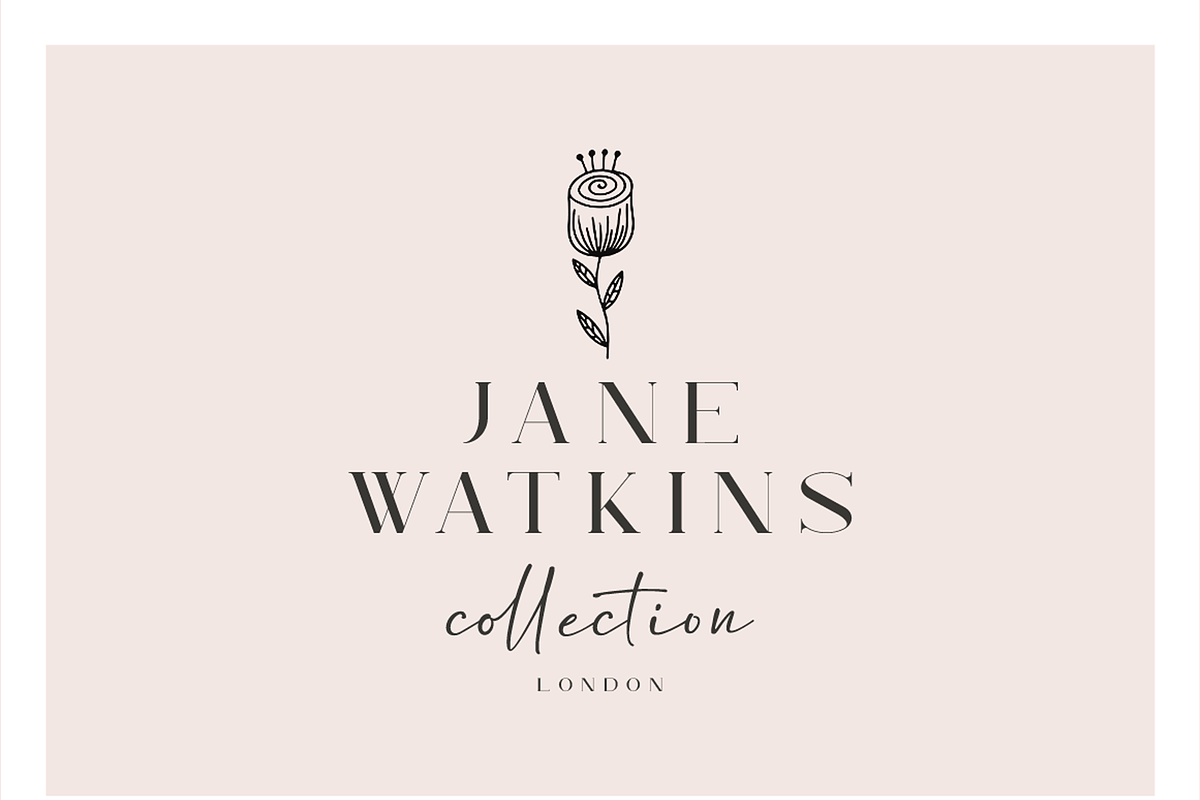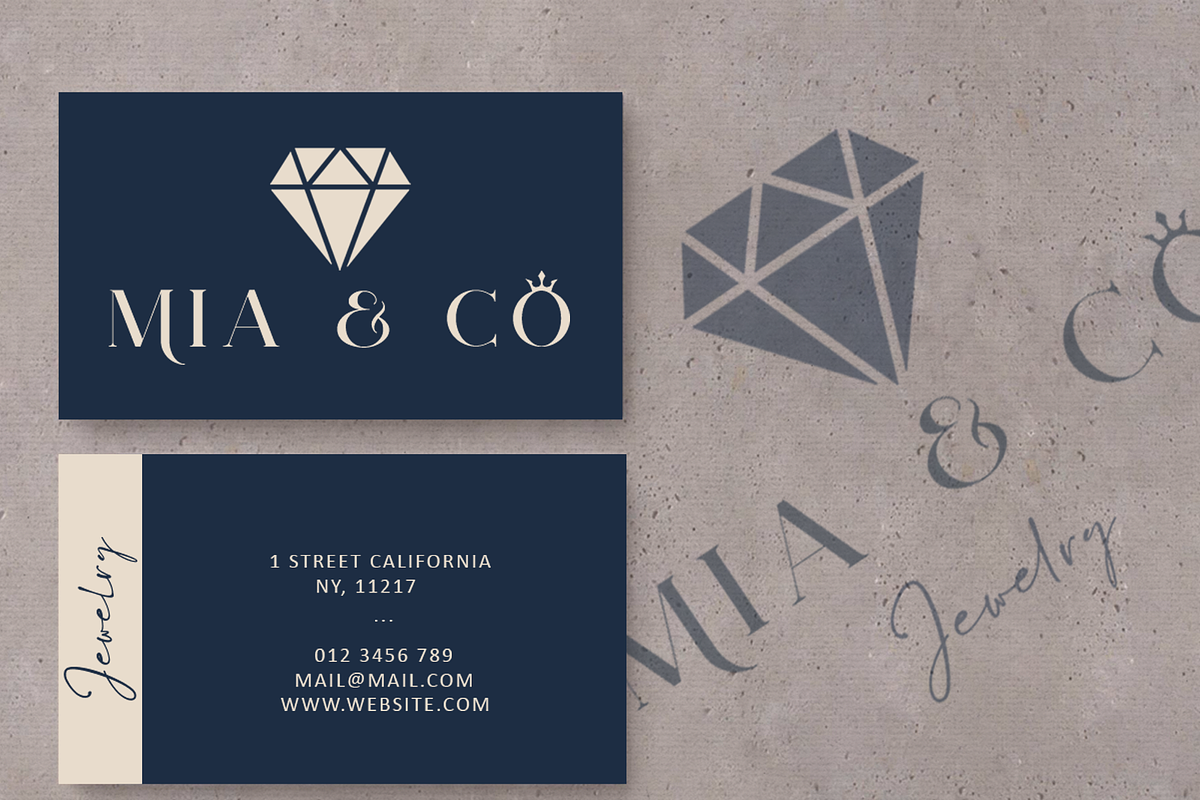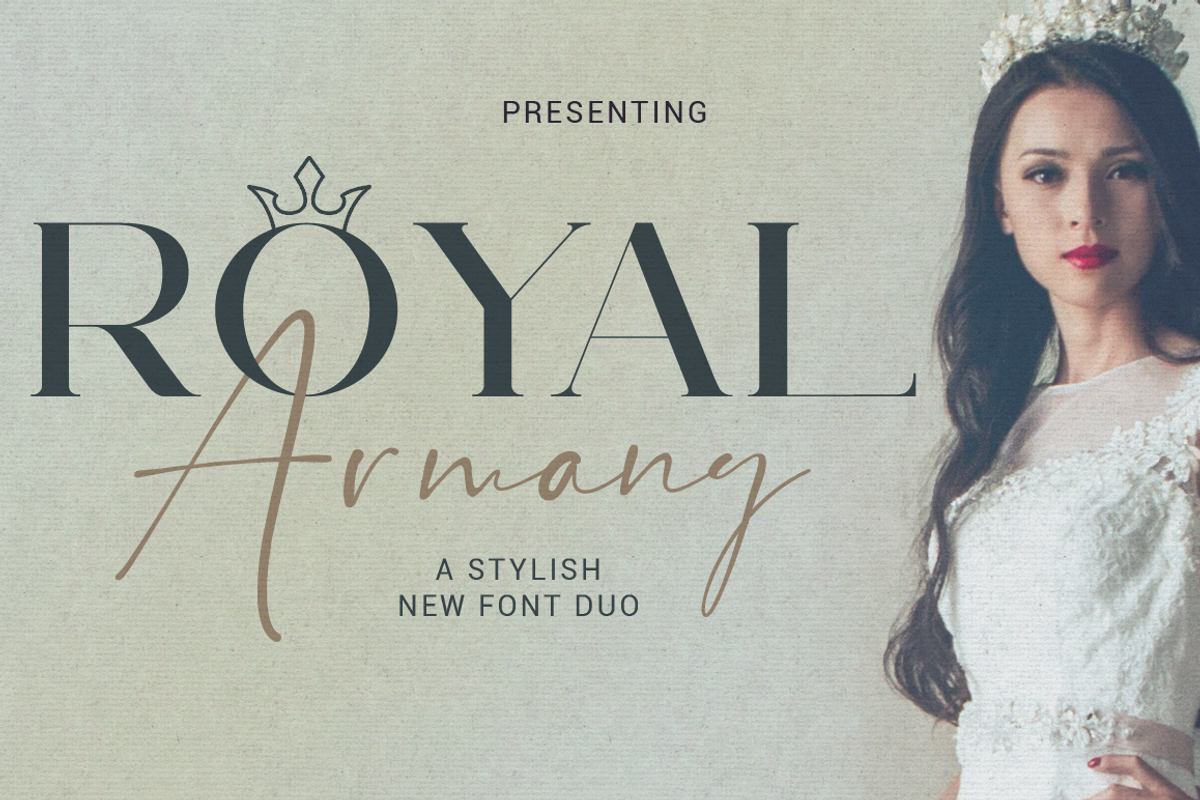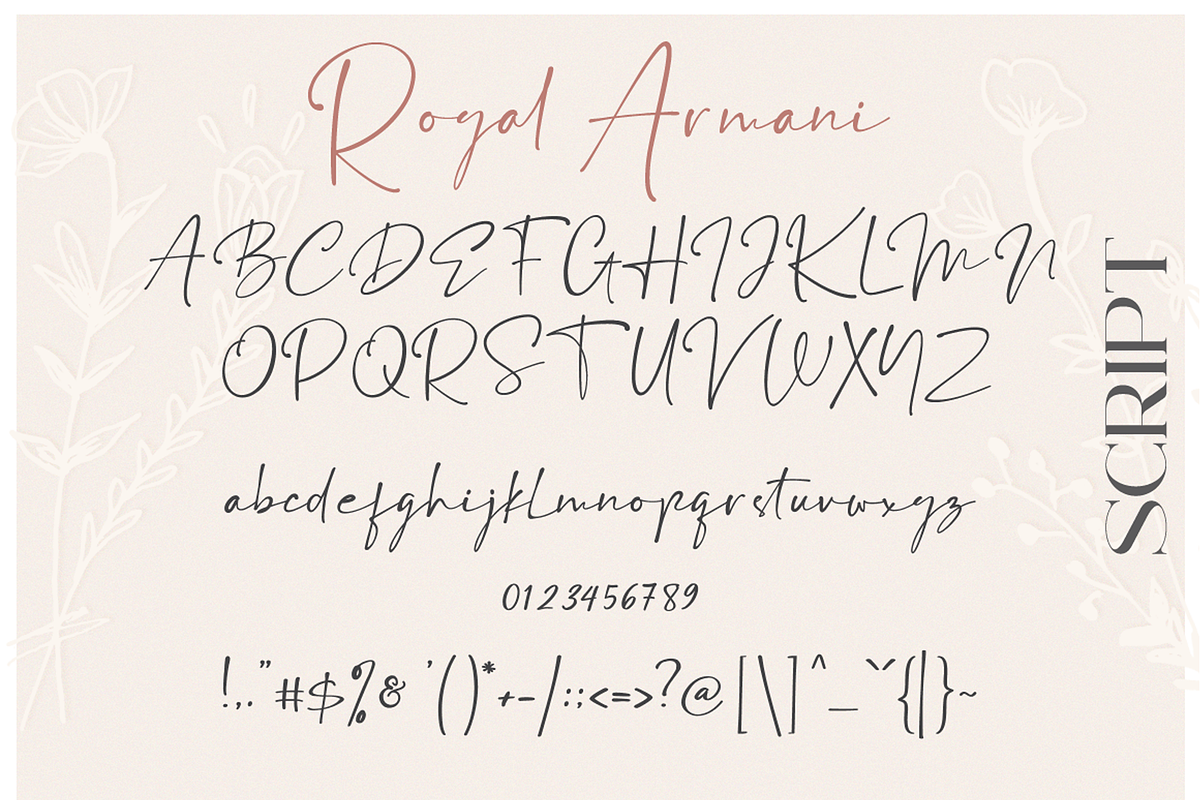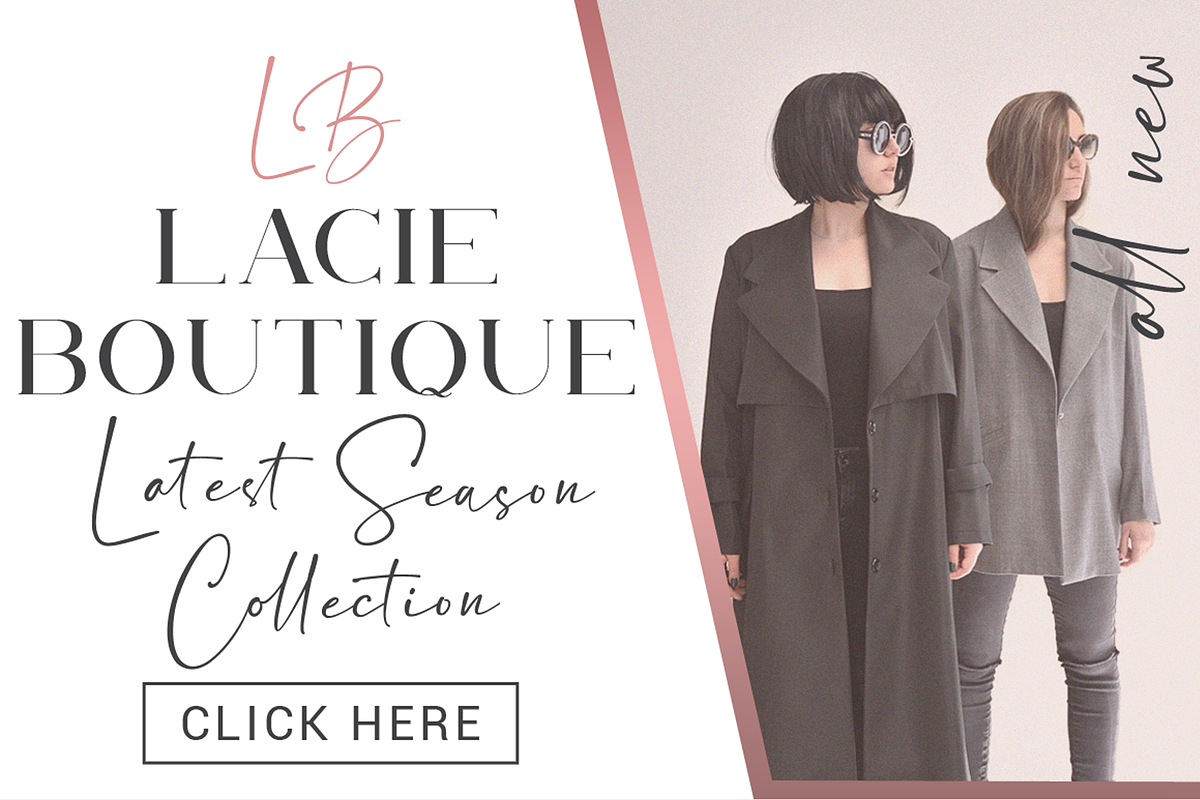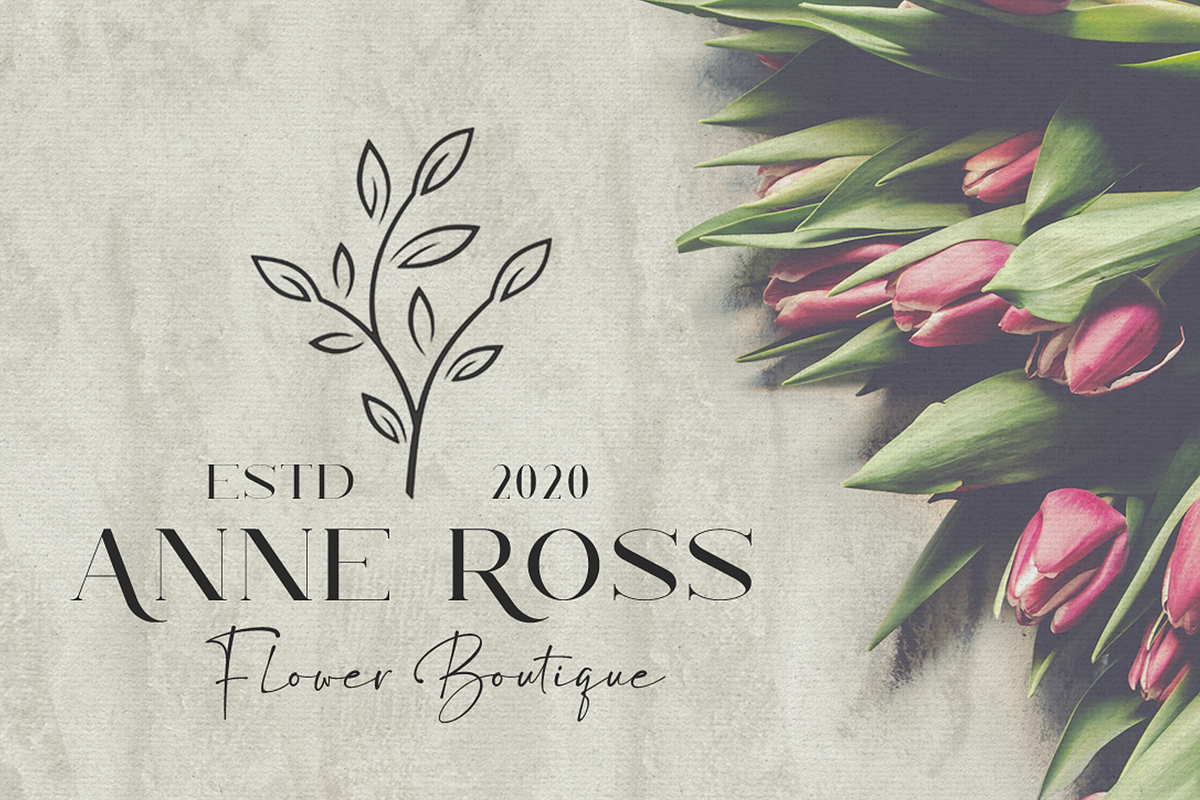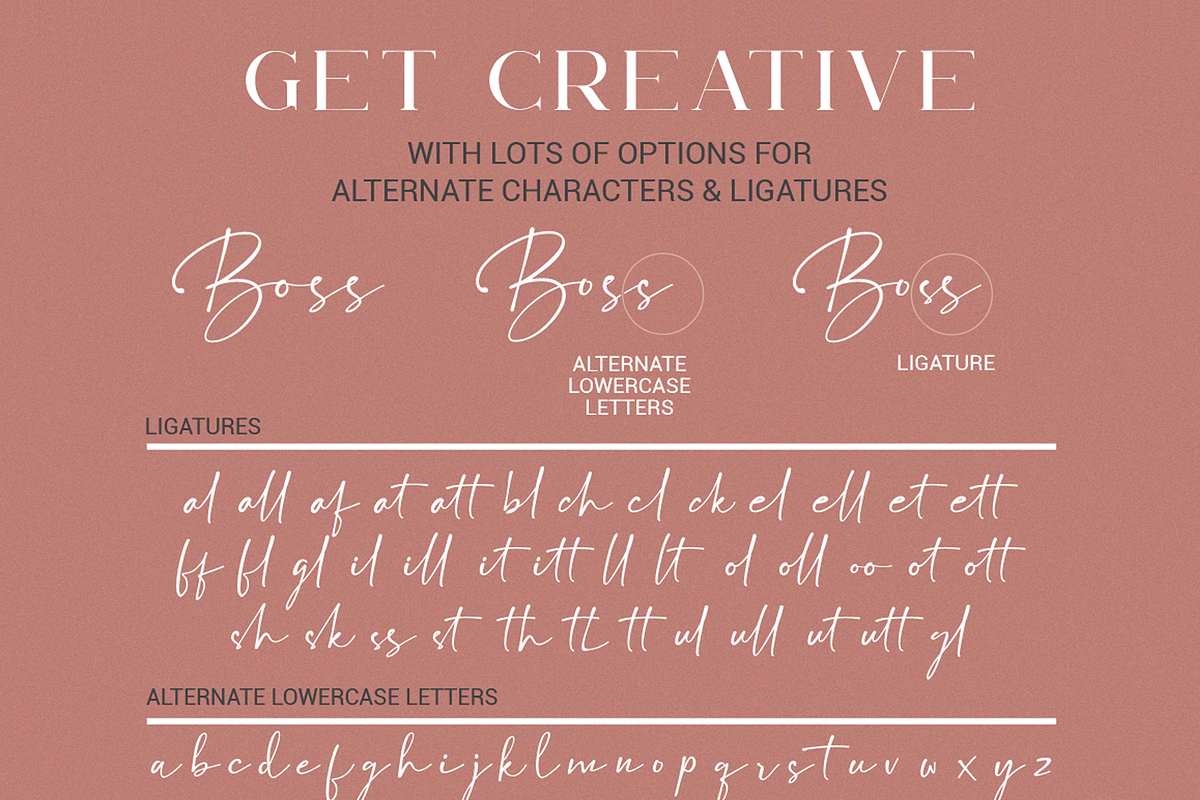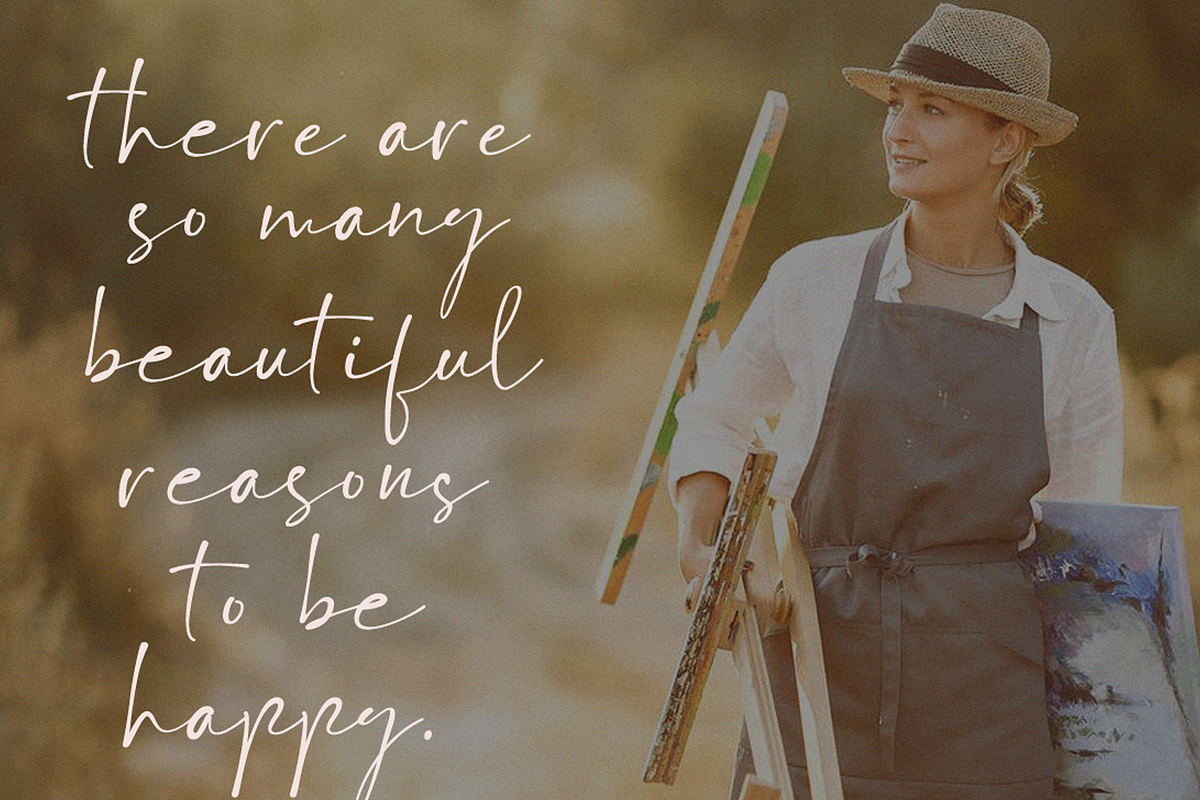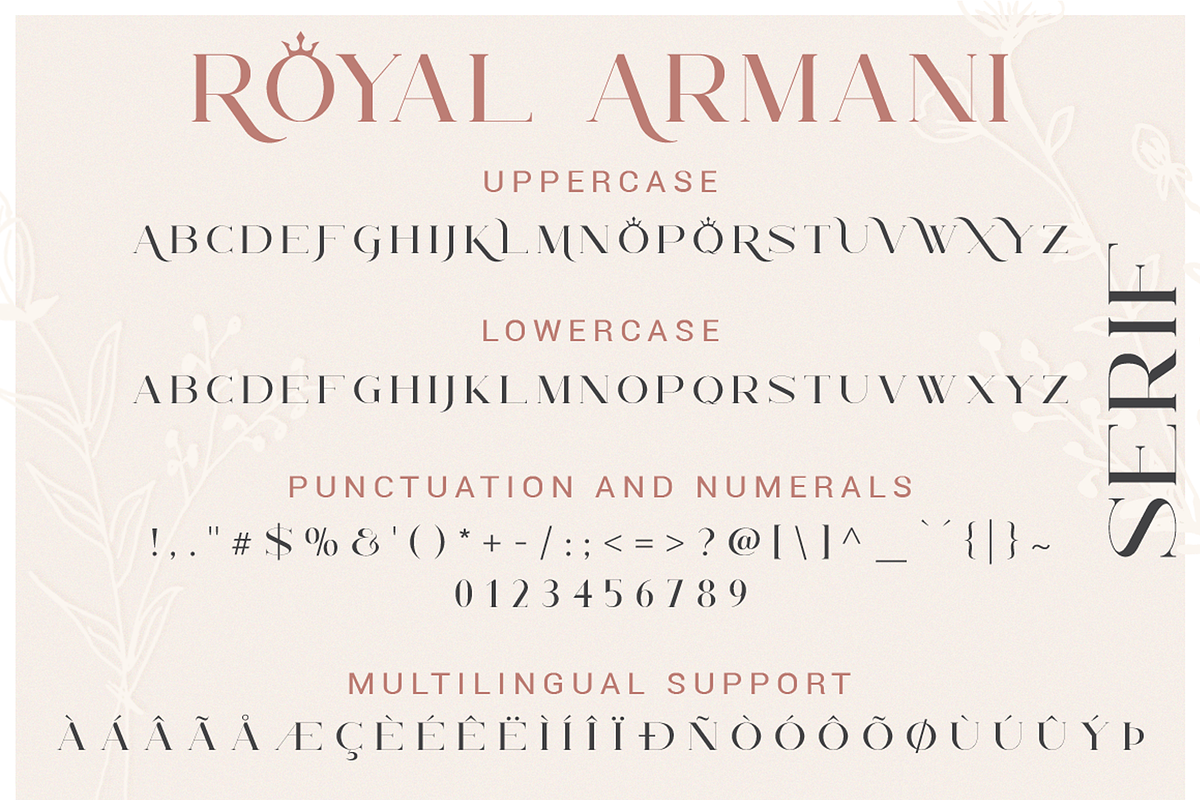
Royal Armany Font Duo
Royal Armany is a modern and luxurious font duo consisting of a handwritten script and a beautiful serif.
Royal Armany Serif – is a neat, friendly, and rich all caps font with multilingual support. Pick and choose between upper and lowercase letters to add a touch of luxury and style to your projects.
Royal Armany Script – A clean, elegant hand-drawn script font containing upper & lowercase characters, all punctuation and numerals. The large selection of stylistic alternations and ligatures makes this font extremely versatile.
Use Royal Armany for logo design, branding, magazine design, headlines, posters, packaging, cards, wedding invitations, and many other design projects.
Have fun with this beautiful font duo and explore its endless variations.